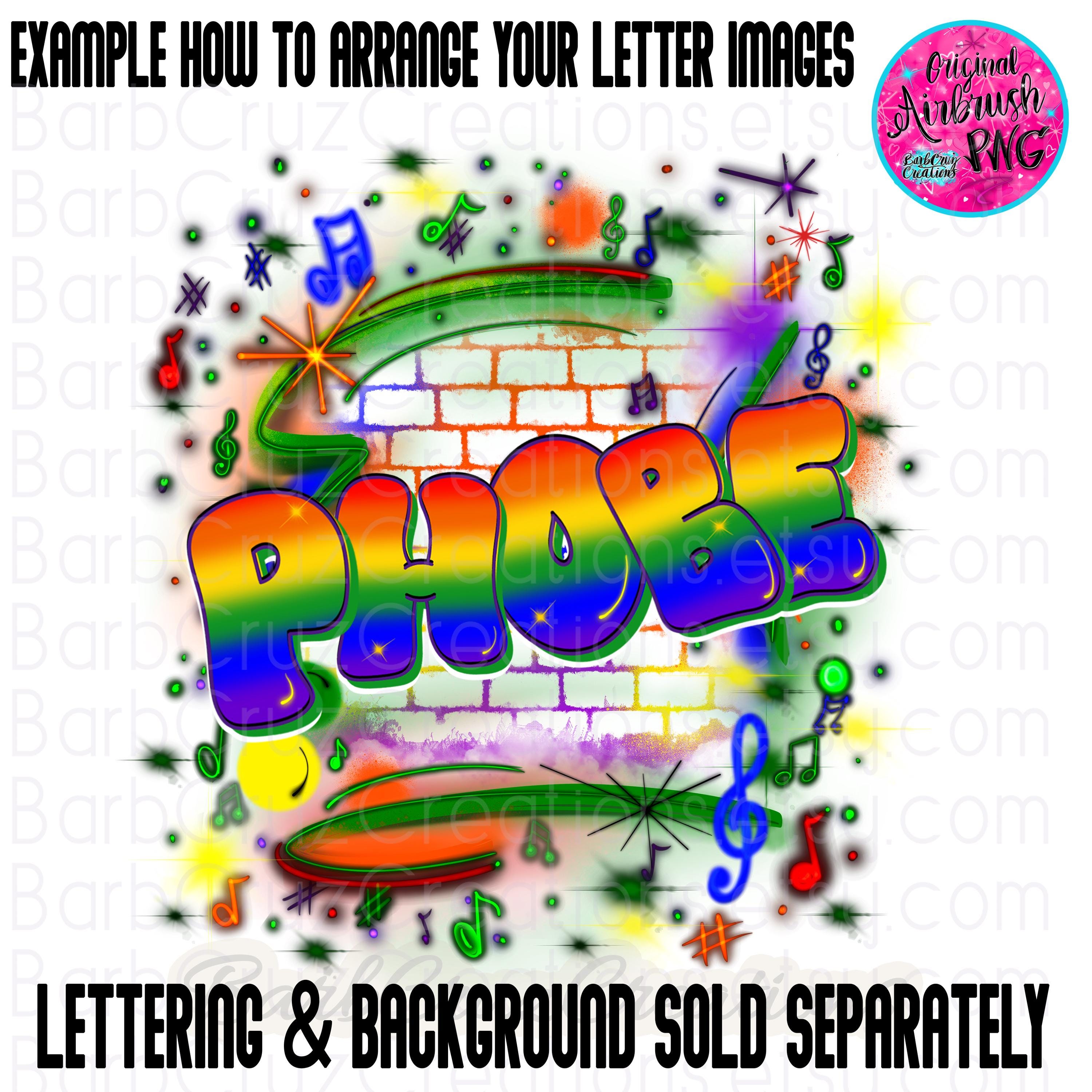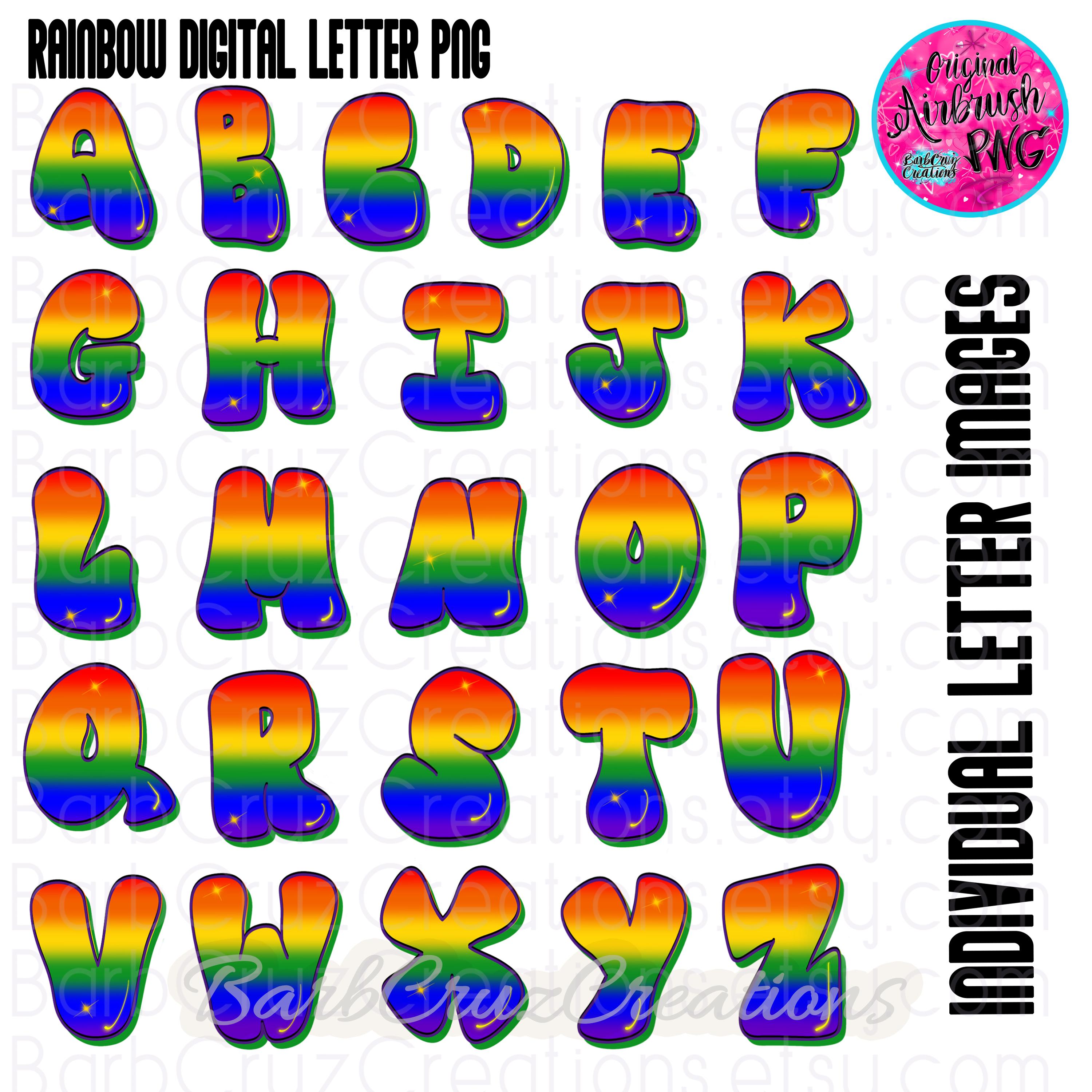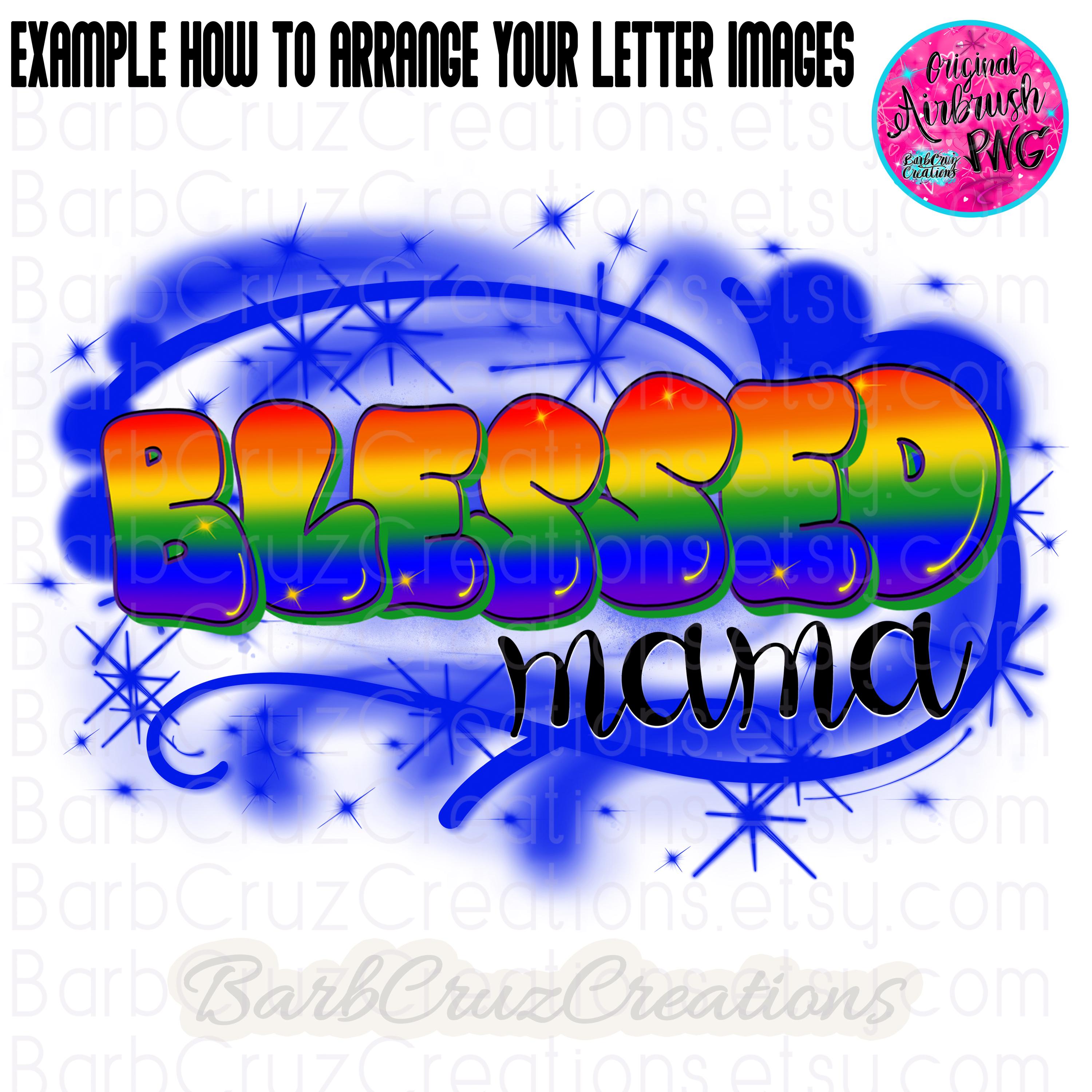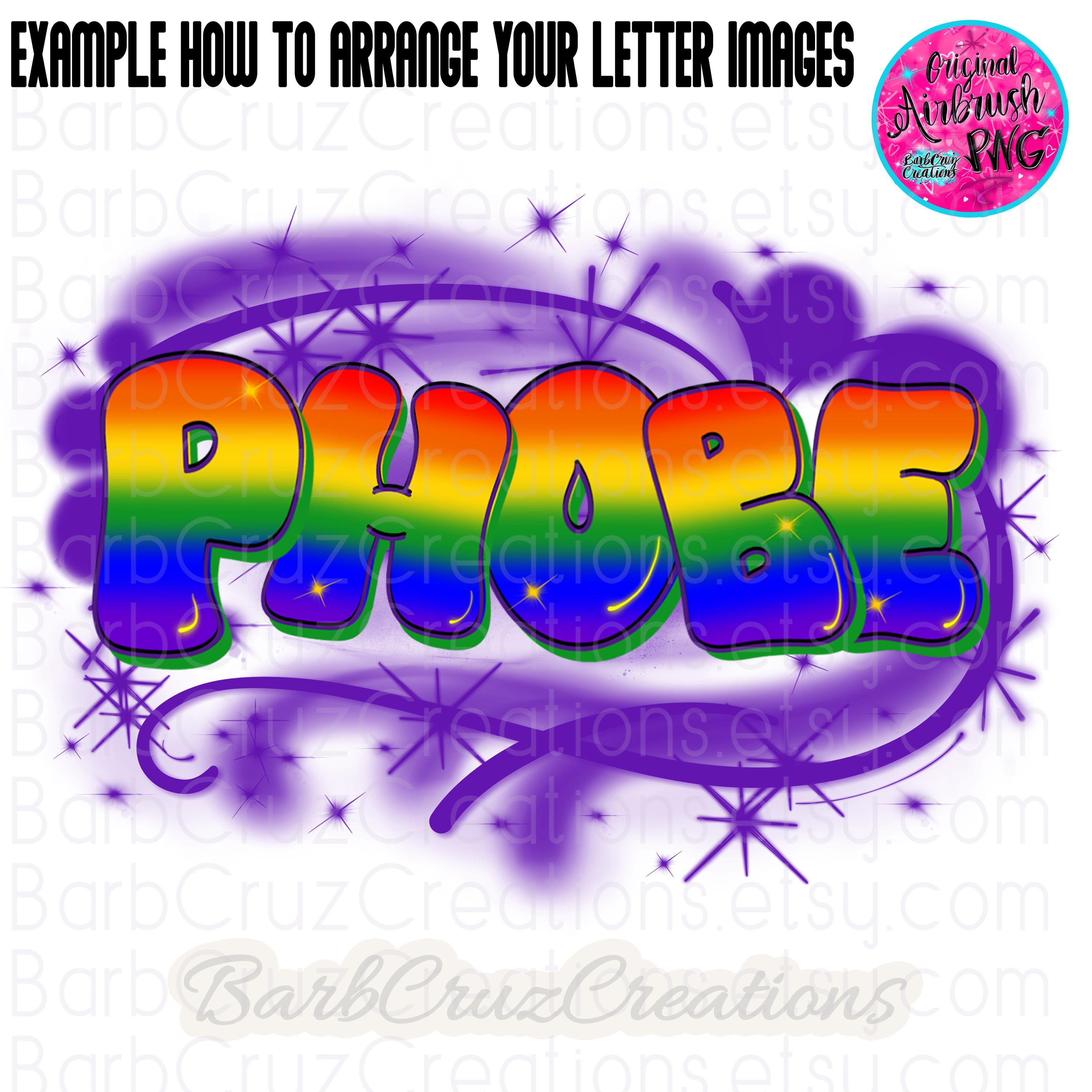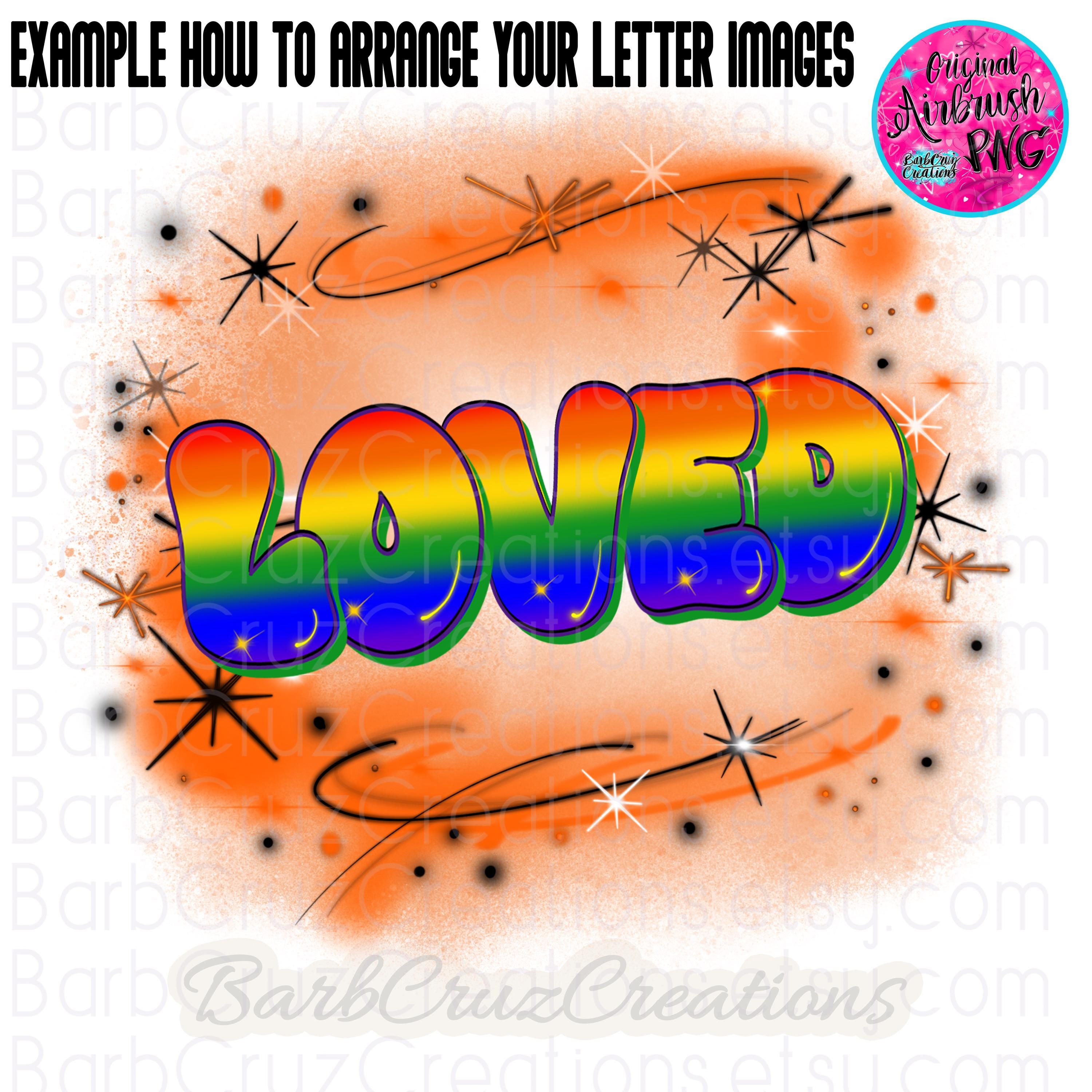
Airbrush Font Rainbow Graffiti Letters, Bubble Airbrush Lettering Images, Alphabet, Sublimation, Hip Hop Letters, Trendy Popular Fonts
Airbrush Alphabet Letter Individual Images on a zip file as png's - Rainbow Bubble Letters each letter is an individual image so you can layer them as desired. This purchase is only for the letters the backgrounds in the examples are not included but sold separately.
Add to a background use for airbrush monogram, a personal message, name, image to make a custom design in your design program.